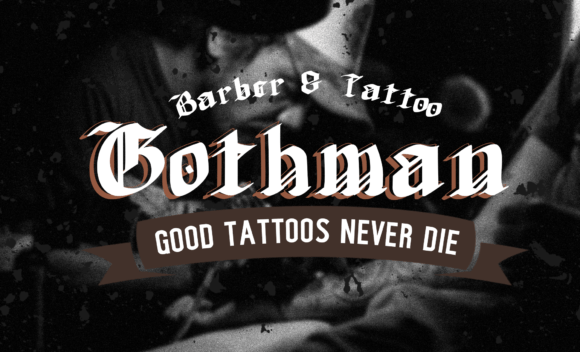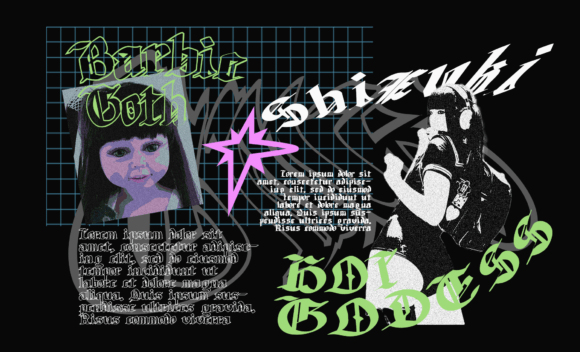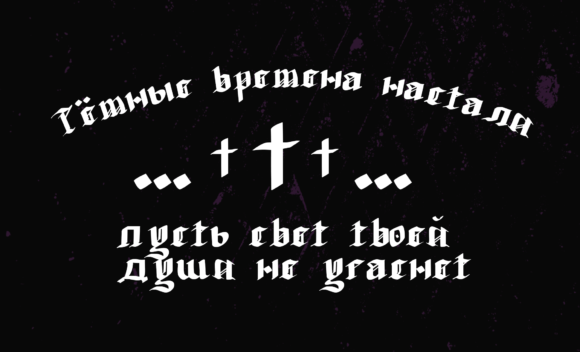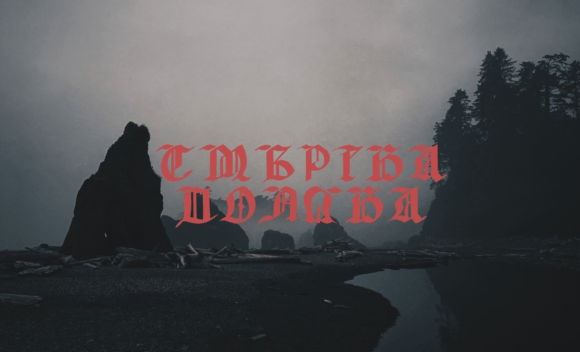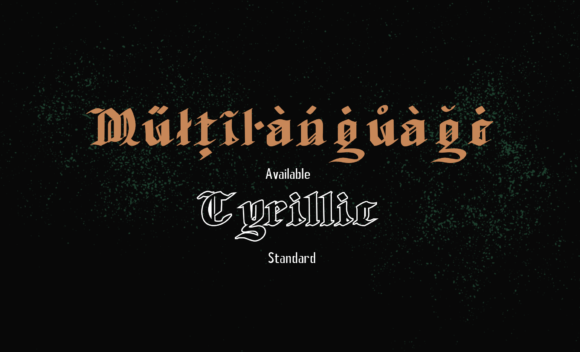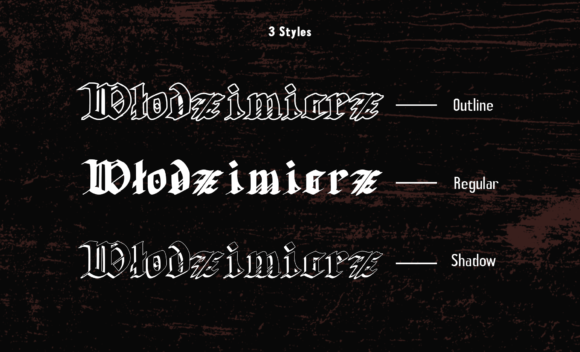
Introducing Groundage: The Ultimate Gothic Blackletter Font for Elegant Designs
In the world of typography, fonts play a crucial role in conveying the tone and style of a design. For designers and crafters looking to create bold, elegant, and eye-catching visuals, Groundage is the perfect choice. This stunning gothic blackletter font is designed to exude sophistication and style, making it ideal for a wide range of design projects.
What is Groundage?
Groundage is a bold and clean gothic blackletter font that seamlessly blends calligraphy and vintage elements. Its unique design makes it perfect for creating Y2K-inspired designs, masculine logotypes, and striking headlines. With its elegant and refined aesthetic, Groundage is sure to elevate any design project to the next level.
Key Features of Groundage
- Bold and Clean Design: Groundage boasts a bold and clean design that is perfect for creating eye-catching visuals.
- Gothic Blackletter Style: Its gothic blackletter style gives it a unique and sophisticated look that is sure to impress.
- Calligraphy and Vintage Elements: The font’s calligraphy and vintage elements add a touch of elegance and style to any design.
- Latin and Cyrillic Characters: Groundage supports both Latin and Cyrillic characters, making it versatile and suitable for a wide range of design projects.
Groundage is an incredibly versatile font that can be used for a variety of design projects. Some of the most popular uses for this font include:
- Posters: Create eye-catching posters with Groundage’s bold and elegant design.
- Marketing Materials: Use Groundage to create stunning marketing materials, such as brochures, flyers, and business cards.
- Art Crafts: Add a touch of elegance to your art crafts with Groundage’s unique and sophisticated design.
- Y2K-Streetwear Design: Create bold and stylish Y2K-streetwear designs with Groundage’s calligraphy and vintage elements.
- Masculine Logotype: Use Groundage to create a striking and masculine logotype that exudes style and sophistication.
Why Choose Groundage?
With so many fonts available, why choose Groundage? Here are just a few reasons why Groundage stands out from the rest:
- Unique Design: Groundage’s unique blend of calligraphy and vintage elements makes it a standout font that is sure to impress.
- Versatility: With its support for Latin and Cyrillic characters, Groundage is suitable for a wide range of design projects.
- Elegance and Style: Groundage exudes elegance and style, making it perfect for designers and crafters looking to create sophisticated visuals.
In conclusion, Groundage is a stunning gothic blackletter font that is perfect for designers and crafters looking to create bold, elegant, and eye-catching visuals. With its unique design, versatility, and elegance, Groundage is sure to elevate any design project to the next level. Whether you’re creating a Y2K-inspired design, a masculine logotype, or a striking headline, Groundage is the perfect choice.
Get Ready to Elevate Your Designs with Groundage
Don’t settle for ordinary fonts – choose Groundage for your next design project. With its bold and clean design, calligraphy and vintage elements, and support for Latin and Cyrillic characters, Groundage is the ultimate gothic blackletter font for elegant designs. Get ready to elevate your designs and take your creativity to the next level with Groundage.